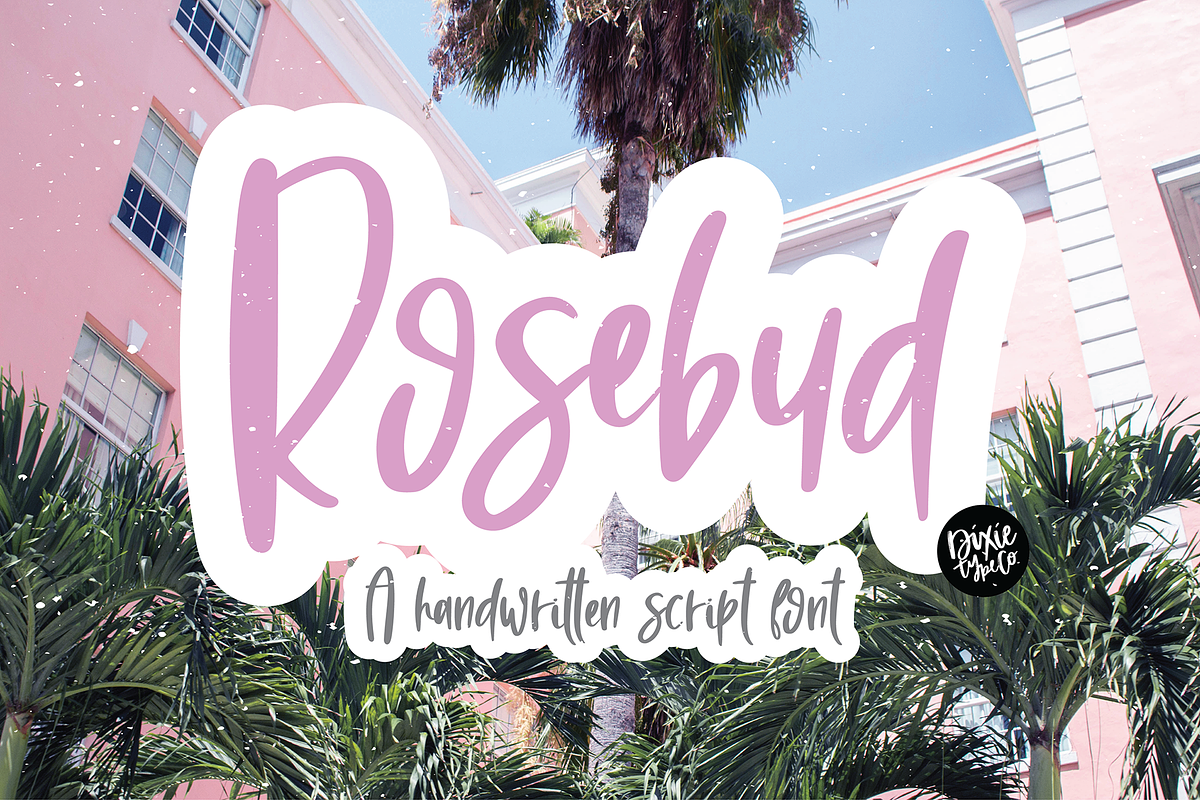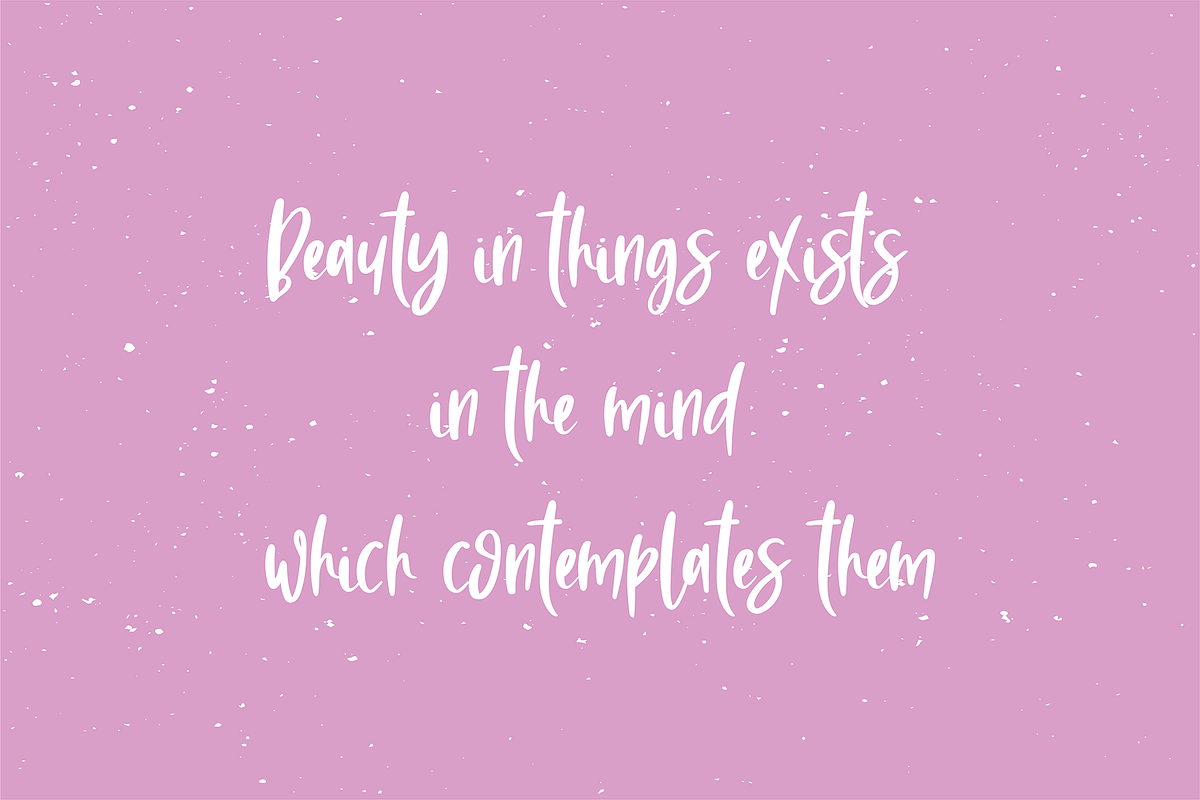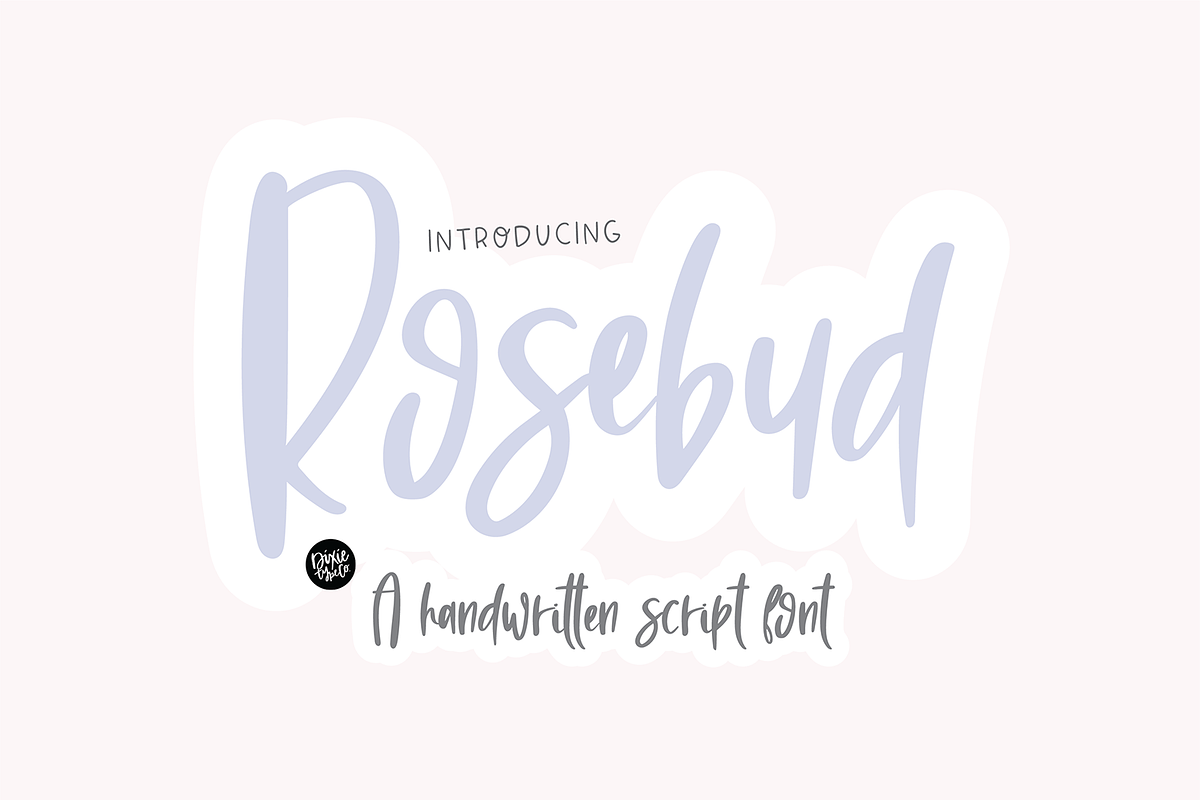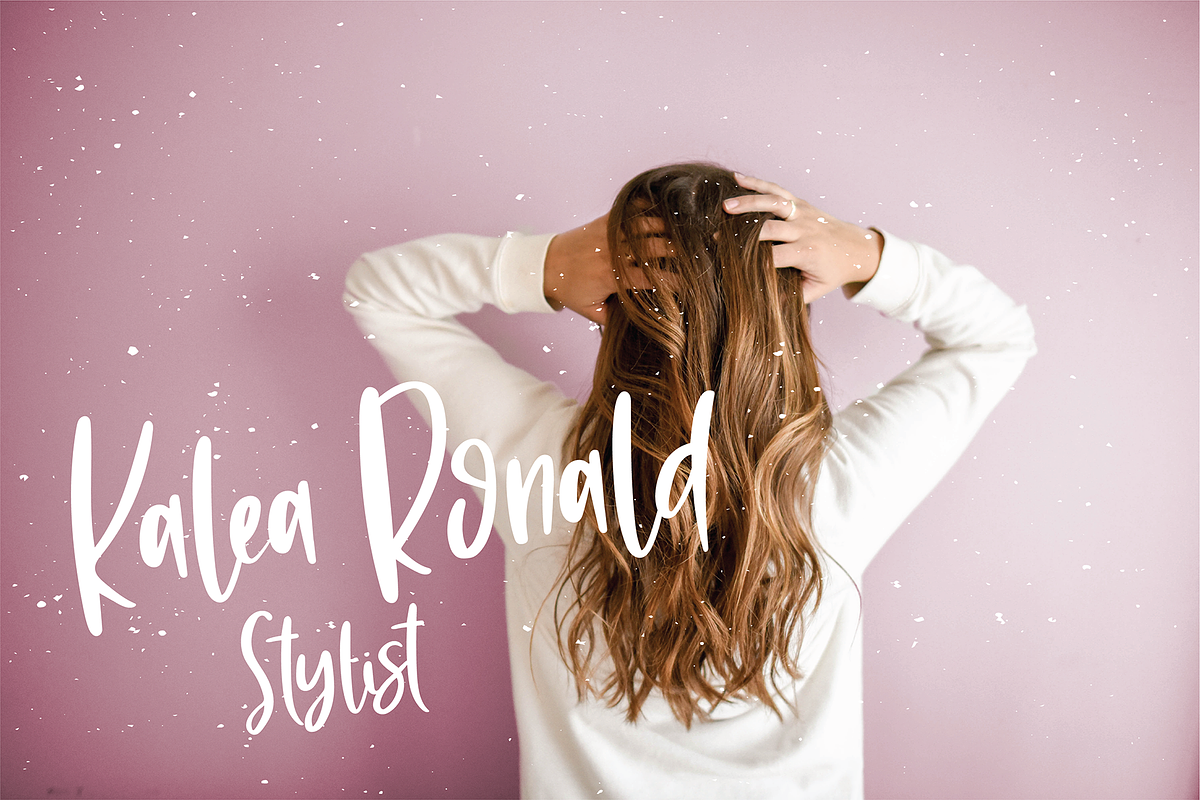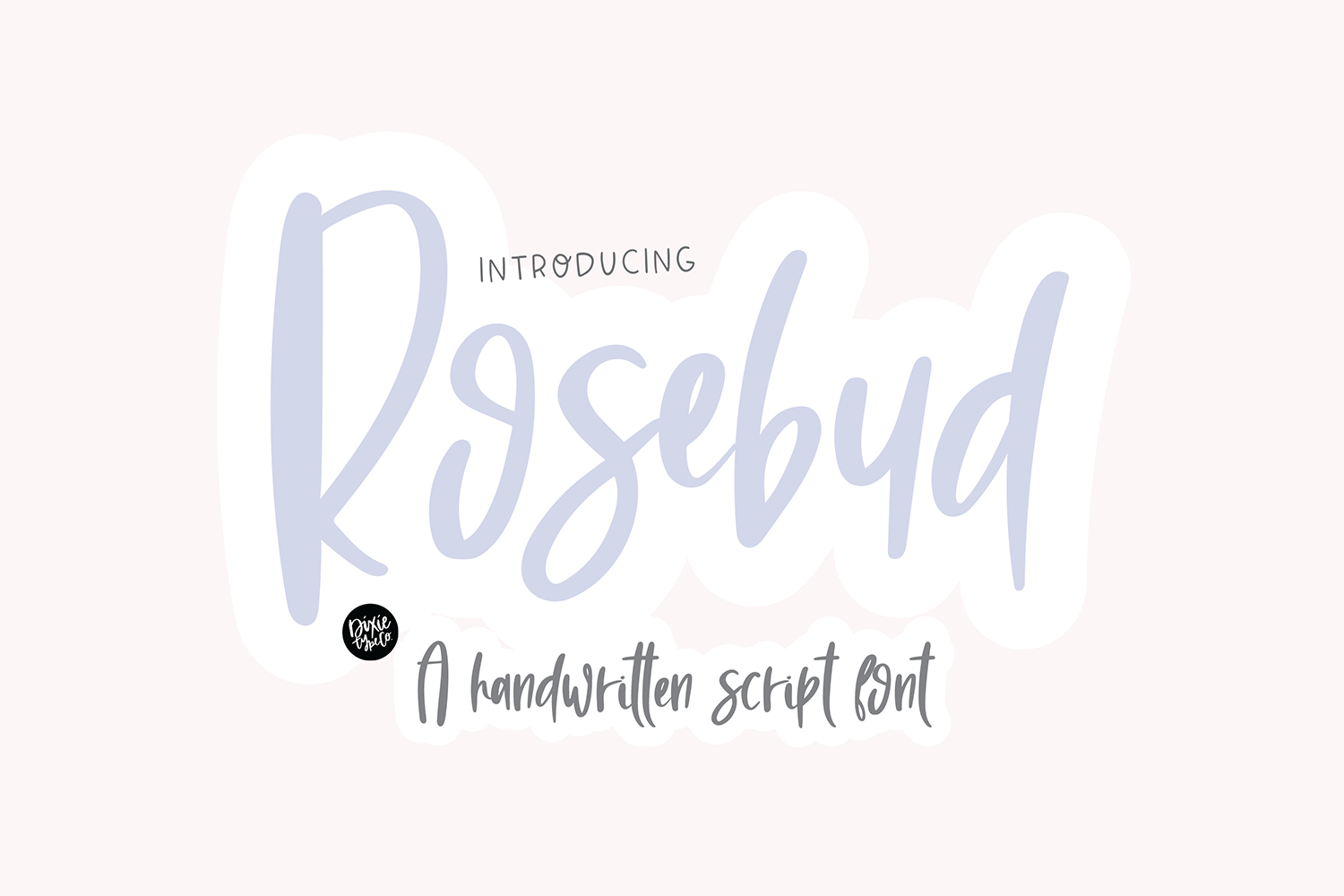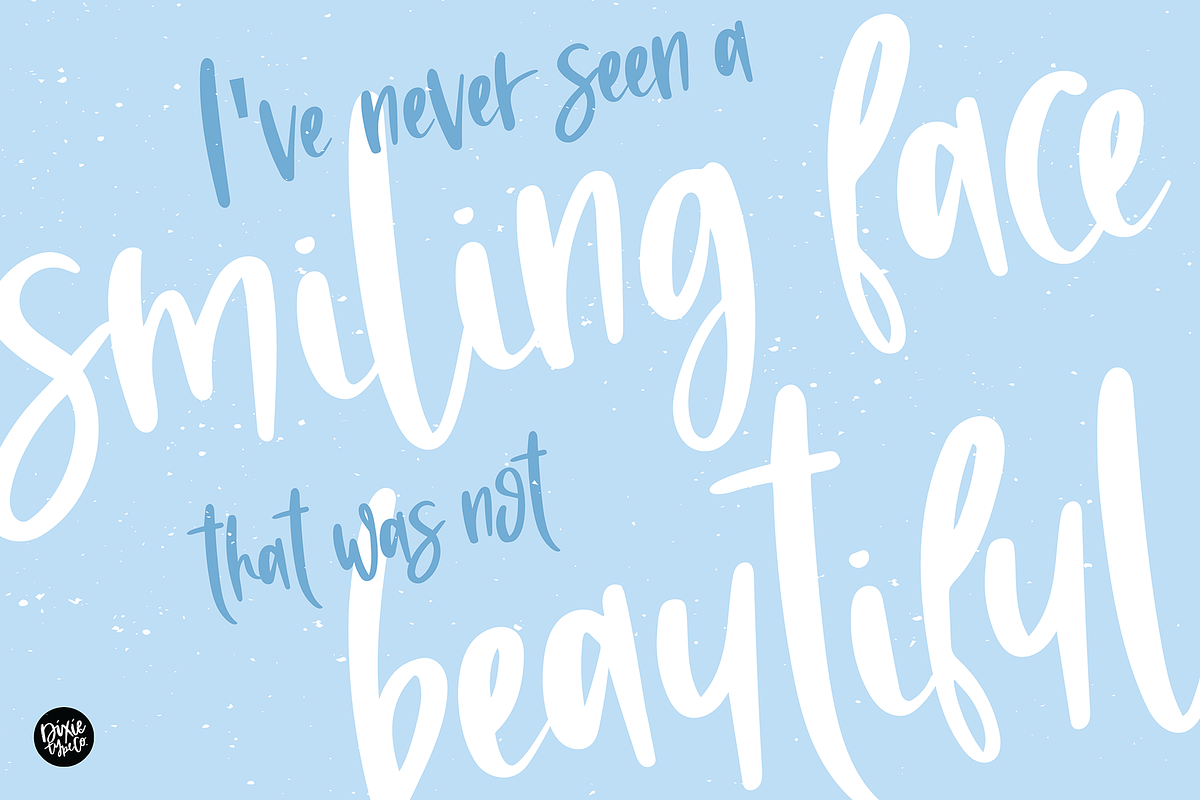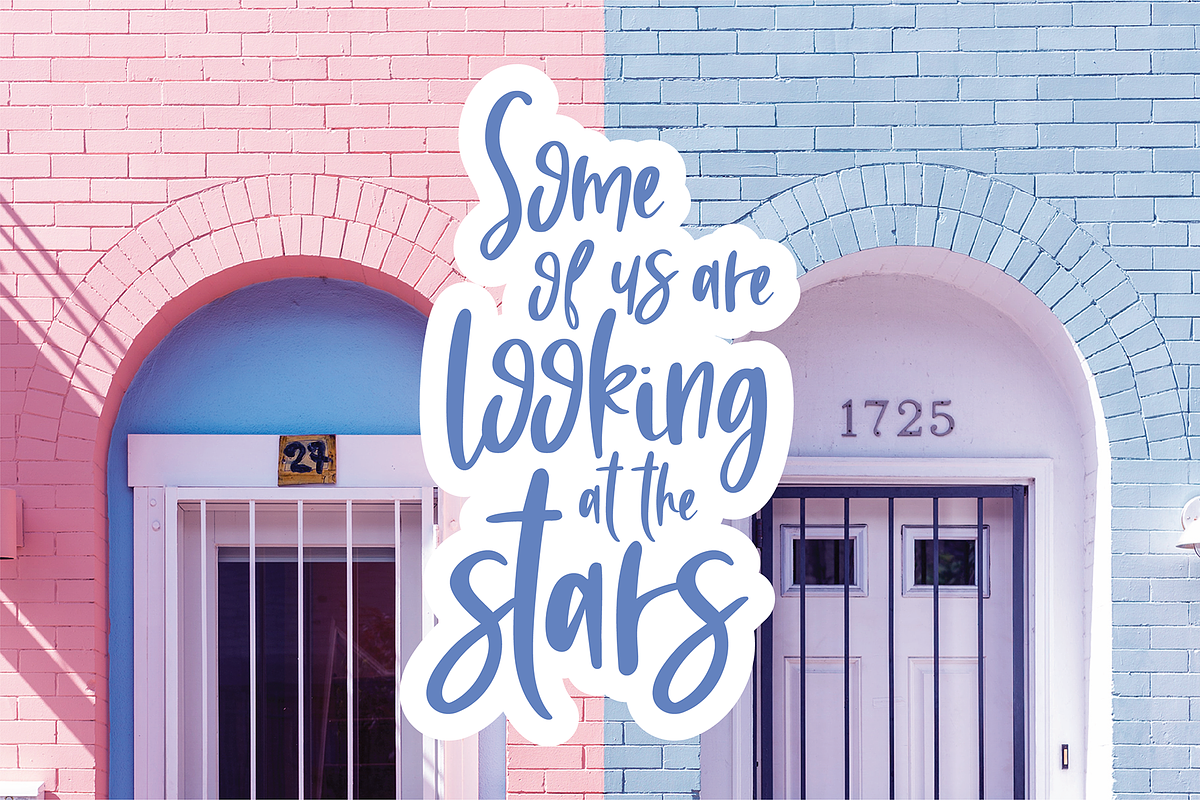
ROSEBUD a Handwritten Script Font
"Rosebud" a brush calligraphy script font
{ A typographic font hand-lettered with love by Dixie Type Co. }
Rosebud is a beautiful brushed hand lettered font. This font is perfect for your stylish projects.